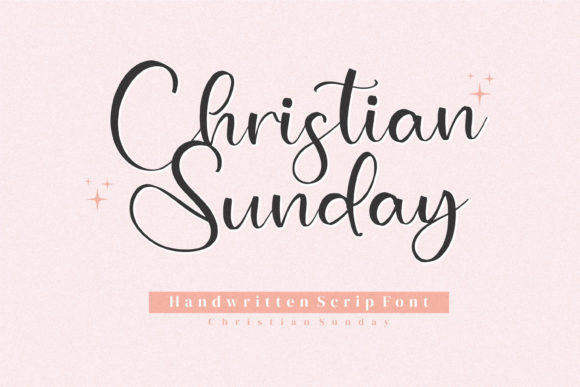
Christian Sunday Font: Elevate Your Designs with Elegance and Class
When it comes to creating visually stunning designs, the right font can make all the difference. For those seeking a touch of elegance and sophistication, the Christian Sunday font is an excellent choice. This lovely and delicate script font is specifically crafted to provide a beautiful and refreshing look to your designs. In this article, we’ll explore the features and benefits of the Christian Sunday font, and how it can elevate your designs to the next level.
What is Christian Sunday Font?
Christian Sunday is a beautiful script font that exudes elegance and class. Its delicate strokes and refined lines make it perfect for designs that require a touch of sophistication. Whether you’re creating a logo, brochure, or social media post, this font is sure to impress. The Christian Sunday font is particularly crafted for those who need a beautiful and refreshing look to their designs, making it an ideal choice for designers, artists, and crafters.
Key Features of Christian Sunday Font
- Elegant and Delicate Design: Christian Sunday font features a lovely and delicate script design that exudes elegance and class.
- Beautiful and Refreshing Look: Christian Sunday font is specifically crafted to provide a beautiful and refreshing look to your designs.
- Perfect for Various Designs: This font is suitable for a wide range of designs, including logos, brochures, social media posts, and more.
Benefits of Using Christian Sunday Font
The Christian Sunday font offers several benefits that make it an excellent choice for designers and crafters. Some of the key benefits include:
- Enhances Visual Appeal: The elegant and delicate design of Christian Sunday font can enhance the visual appeal of your designs, making them more engaging and attractive.
- Versatile: This font is suitable for a wide range of designs, from logos and brochures to social media posts and more.
- Unique and Creative: This font can add a unique and creative touch to your designs, setting them apart from others.
Design Tips for Using Christian Sunday Font
Here are some design tips to keep in mind when using Christian Sunday font:
- Pair with Other Fonts: Pair Christian Sunday font with other fonts to create a unique and creative look.
- Use Contrasting Colors: Use contrasting colors to make your design stand out.
- Experiment with Glyphs and Swashes: Experiment with the various glyphs and swashes available to add a personal touch to your design.
In conclusion, the Christian Sunday font is a beautiful and elegant script font that can elevate your designs to the next level. Its delicate strokes and refined lines make it perfect for designs that require a touch of sophistication. With its PUA encoding and easy-to-use design, this font is an excellent choice for designers, artists, and crafters. Whether you’re creating a logo, brochure, or social media post, the Christian Sunday font is sure to impress.